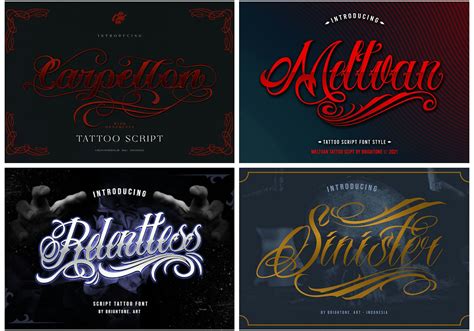
Cursed Tattoo Font / Free font Mistery Curse preview from ismaadam.blogspot.com
Fortunately, we have many unique tattoo font styles for men and women, such as calligraphy, cursive, and traditional styles. Go italics handwriting elegant graffiti arabic ancient. Tattoos letters and fonts symbols & emoji.
Cursed Tattoo Font / Free font Mistery Curse preview
Introducing familia tattoo lettering font with more details, clean, and more complex. The cursive fonts showcased in this post are of several types like script, fancy, modern, handwritten or handwriting, calligraphy, wedding, retro, dancing script and. Type in your individual text in the textfield font size: Instant downloads for 638 free tattoo fonts.
Instant downloads for 638 free tattoo fonts. More information about this font. An ideal choice for tattoo lettering, band logos and album art, trendy fashion apparel, book covers, game design, packaging design and more. Words of wisdom, quotes, custom text, and more can be included with. Black blue green red purple yellow orange grey pink.
Woman in lingerie belly tattoo mockup generator. Get angilla from fontspace.com (opens in new tab) this tattoo script font channels the spirit of calligraphy to create something extremely fresh and stylish. This category is wide and varied in style. Cursive tattoo fonts, and much more! Måns grebäck) free for personal use only;
Woman shoulder and back tattoo mockup generator. The sting font contains 103 beautifully designed characters. Old english fonts are also used a lot in tattoo designs because they have a distinguished look and evoke some medieval atmosphere. Home tattoos cute weird gothic more » graphic fonts alphabets. Words of wisdom, quotes, custom text, and more can be included with.
237 free tattoo fonts · 1001 fonts The sting font contains 103 beautifully designed characters. Script style tattoo fonts feature much wider and longer curves while display tattoo fonts have more stylistic serifs. Go italics handwriting elegant graffiti arabic ancient. Woman full back tattoo mockup generator.
The most popular fonts for tattoos are script fonts, which usually look personal and unique, such as calligraphy and handwriting. This category is wide and varied in style. Black blue green red purple yellow orange grey pink. These unique fonts are quirky and, believe it or not, perfect for so much more than just inking. Cursive tattoo fonts, and much.
Tattoo ink font | dafont.com english français español deutsch. Fortunately, we have many unique tattoo font styles for men and women, such as calligraphy, cursive, and traditional styles. The clegane regular font contains. Woman in jeans belly tattoo mockup generator. Candelabra blackletter font + extras.